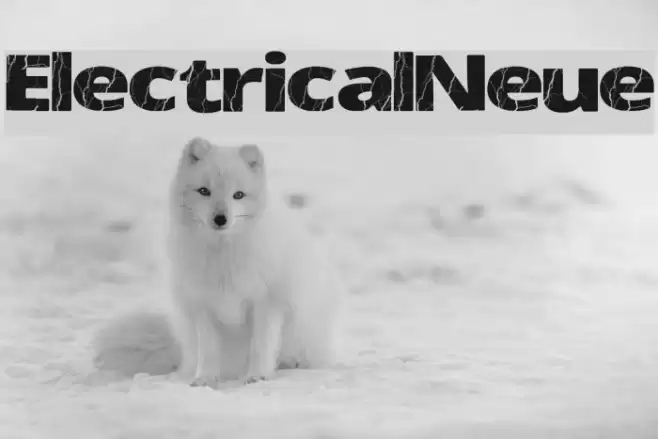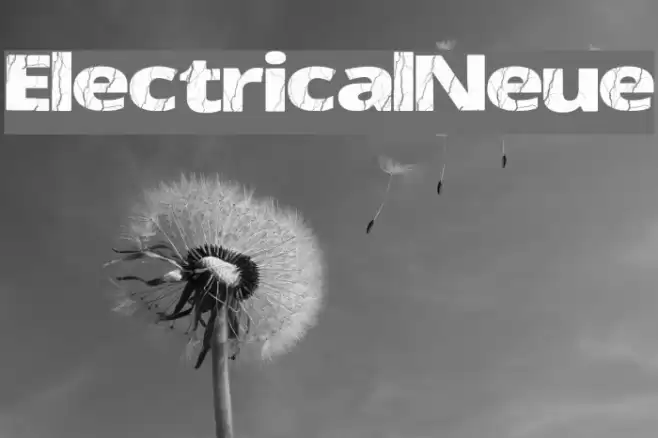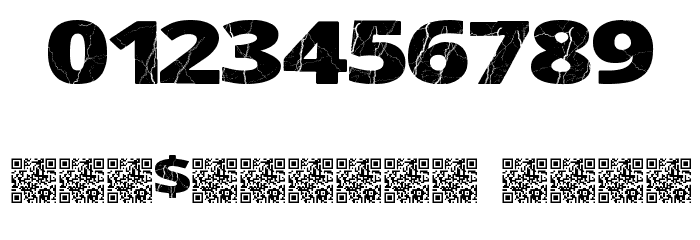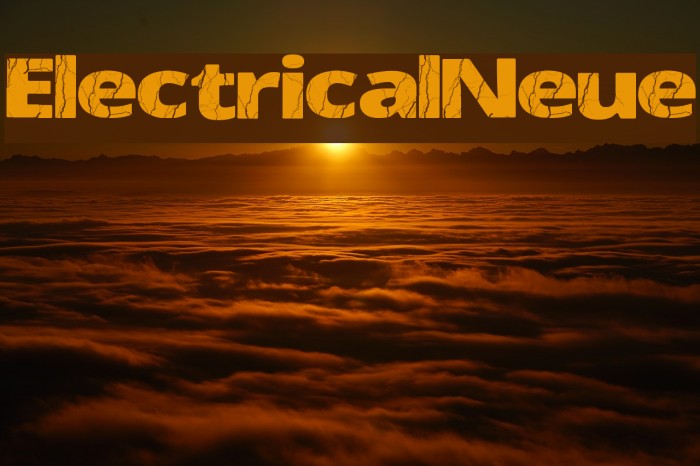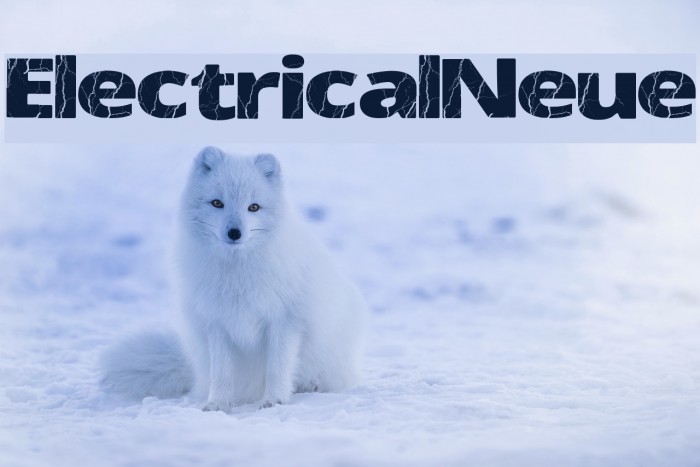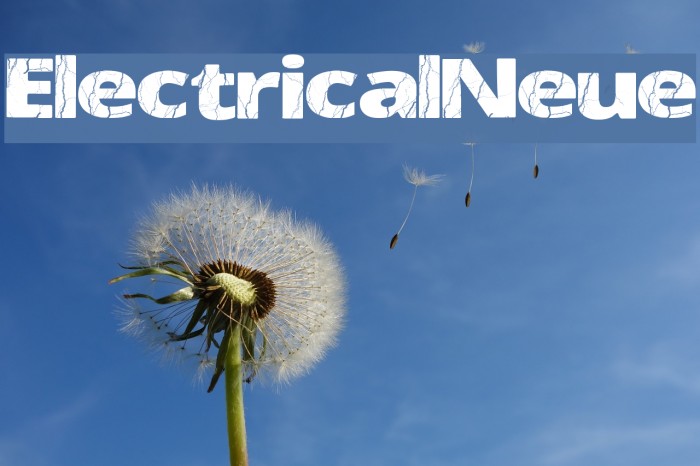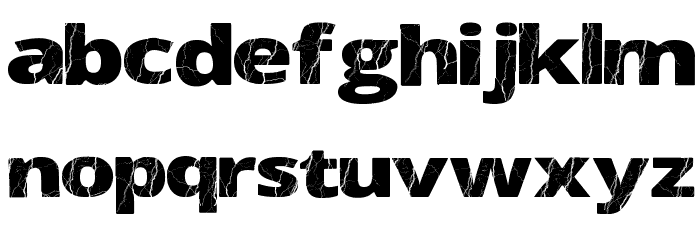
ElectricalNeue Font
ElectricalNeue Description
This font features a bold and impactful design with a distressed, cracked texture that gives it a rugged and edgy appearance. The uppercase and lowercase letters maintain a consistent thickness, contributing to a strong visual presence. The numerals and special characters share the same distressed style, ensuring uniformity across all elements. The font's unique texture makes it ideal for projects that require a gritty, industrial feel. Its boldness ensures readability while the texture adds a layer of visual interest, making it suitable for eye-catching designs.
A bold, distressed font with a cracked texture for an edgy look from Decorative fonts.
- Proposed Projects: Ideal for posters, album covers, branding for edgy products, or any design needing a rugged, industrial vibe.